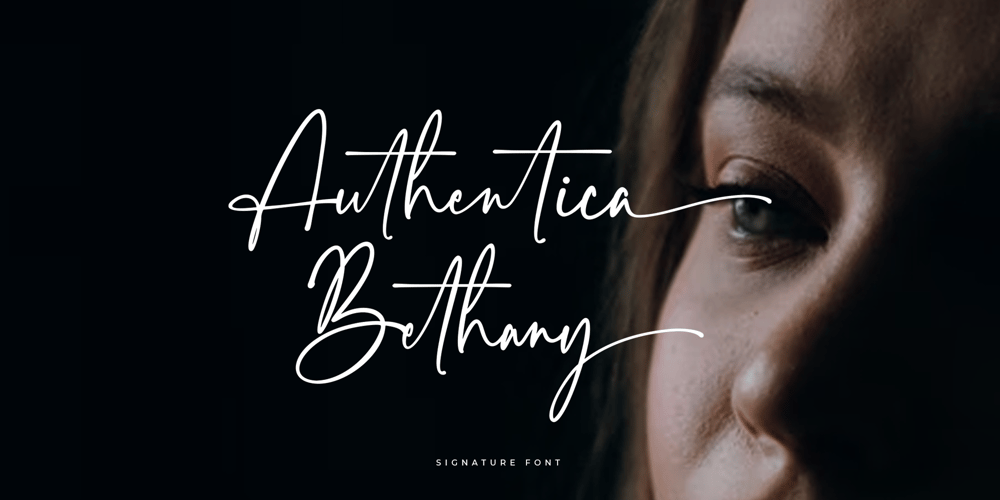
Authentica Bethany Font Family was designed by Revo Farsiky and published by Pen Culture. Authentica Bethany contains 1 styles and family package options. Introducing “Authentica Bethany Signature Font” This font was born with a sweet touch of hand lettering technique, with a unique and beautiful shape that makes this font very authentic. This font include uppercase and lowercase, number and punctuation, have more than 80 ligature, and beginning and ending swash in lowercase.I really hope you enjoy it – please do let me know what you think, comments & likes are always hugely welcomed and appreciated. More importantly, please don’t hesitate to drop me a message if you have any issues or queries.Thank you